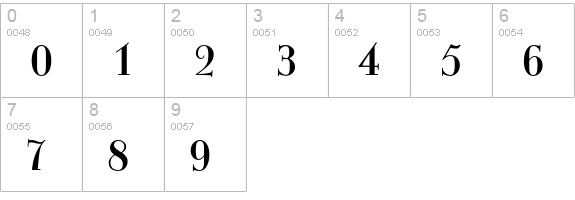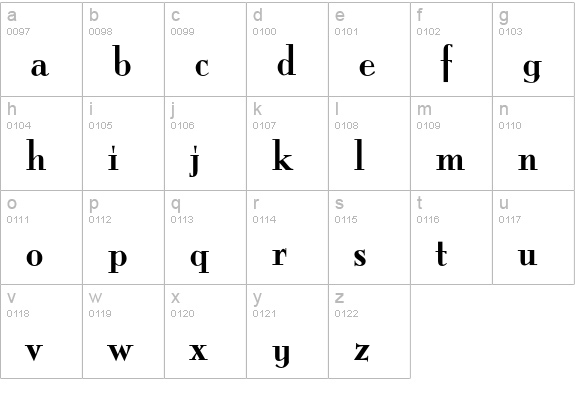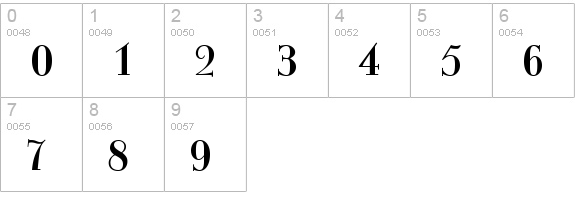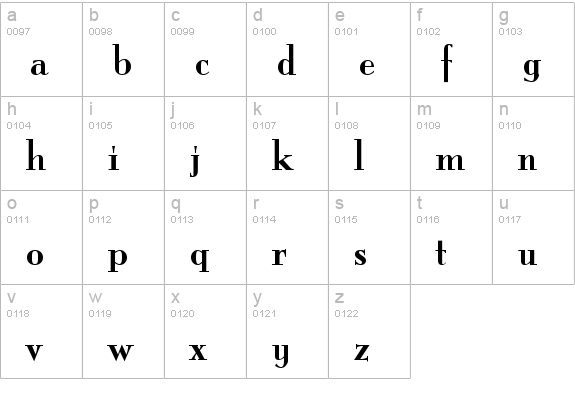
ItingOpti-Regular Font Details
ItingOpti-Regular is the standard, neutral variant in the ItingOpti typeface family \xE2\x80\x94 well suited to general body text, paragraphs, and standard typographic work.
ItingOpti-Regular is a stunningly elegant font that effortlessly combines modern sophistication with timeless beauty. This versatile typeface is perfect for a wide range of design projects, from branding and logos to invitations and headlines. Its clean lines and sleek curves create a sense of refinement and professionalism, making it an ideal choice for both print and digital media. With its balanced proportions and carefully crafted letterforms, ItingOpti-Regular exudes a sense of harmony and balance. Each character is meticulously designed to ensure legibility and readability, even at smaller sizes. Its generous spacing allows for easy reading, while its gentle curves add a touch of warmth and personality. One of the most appealing aspects of ItingOpti-Regular is that it is available for free. That's right – this exquisite font can be downloaded at no cost from FontsMarket.com. Whether you're a professional designer looking to expand your font library or a casual user in need of a stylish font for your personal projects, ItingOpti-Regular is the perfect choice. So why wait? Head over to FontsMarket.com today and download ItingOpti-Regular for free. Unleash your creativity and elevate your designs with this exceptional font.